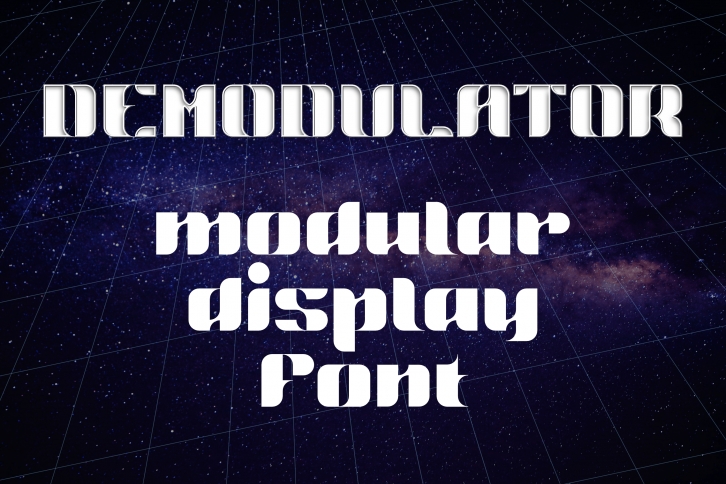
Demodulator is a modular variable font with a futuristic look and feel. Use this streamlined typeface for posters and headings where you want some extra impact and character.